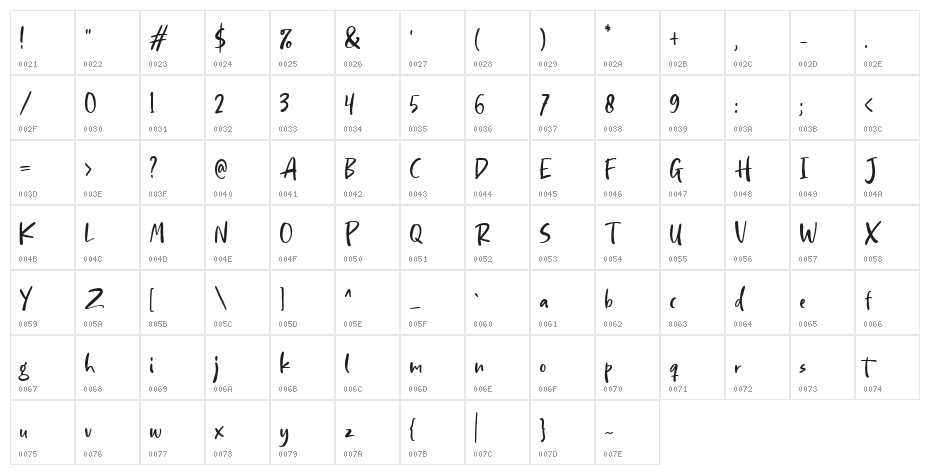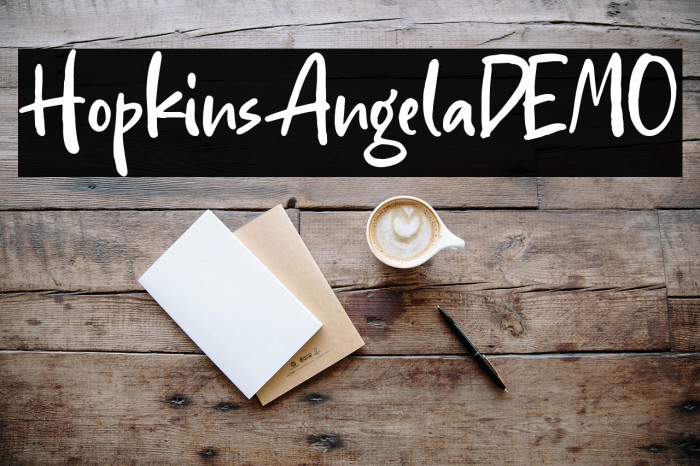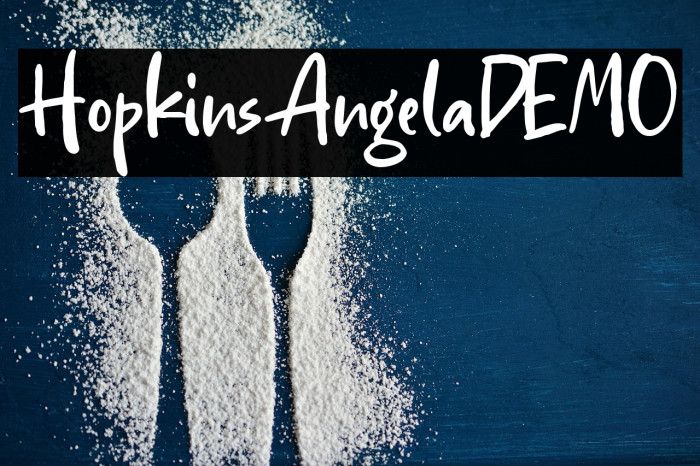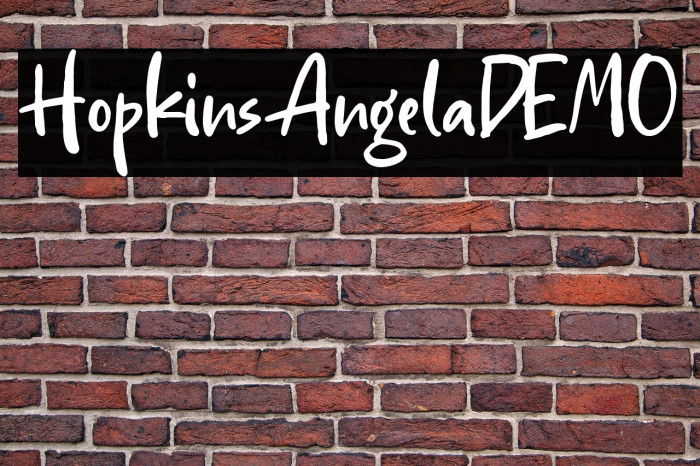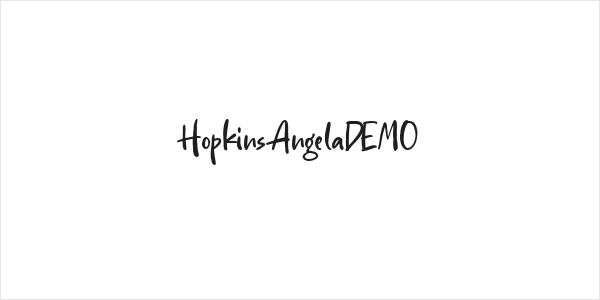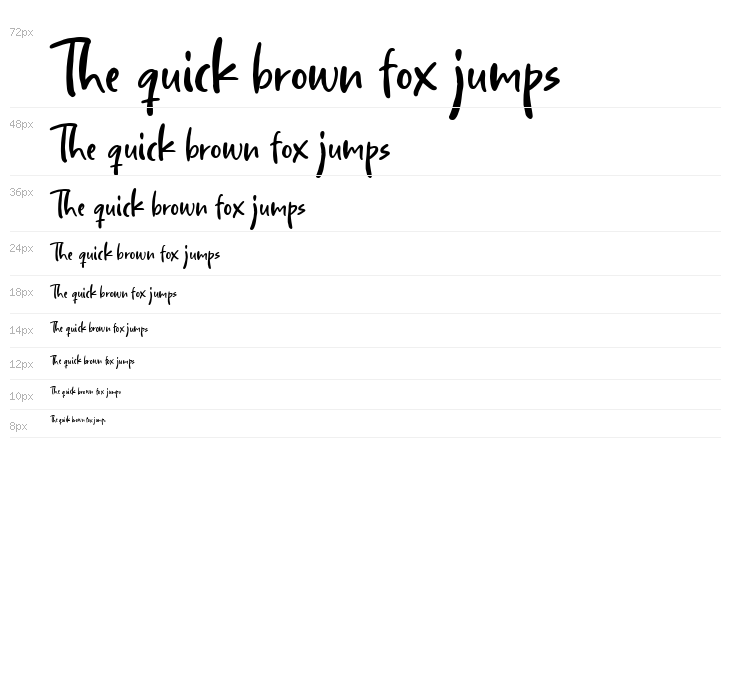
HopkinsAngelaDEMO Font
HopkinsAngelaDEMO Description
This font exudes a lively and dynamic handwritten style, characterized by its bold and fluid strokes. The uppercase letters are slightly taller and more pronounced, while the lowercase letters maintain a consistent flow, adding to its casual yet sophisticated appearance. Numbers and special characters are crafted with the same energetic flair, ensuring a cohesive look across all text elements. The font's playful nature makes it ideal for projects that require a personal touch, such as invitations, greeting cards, or branding materials that aim to convey warmth and approachability.
| Proposed Projects | Ideal for invitations, greeting cards, branding materials, and any project needing a personal, approachable touch. |